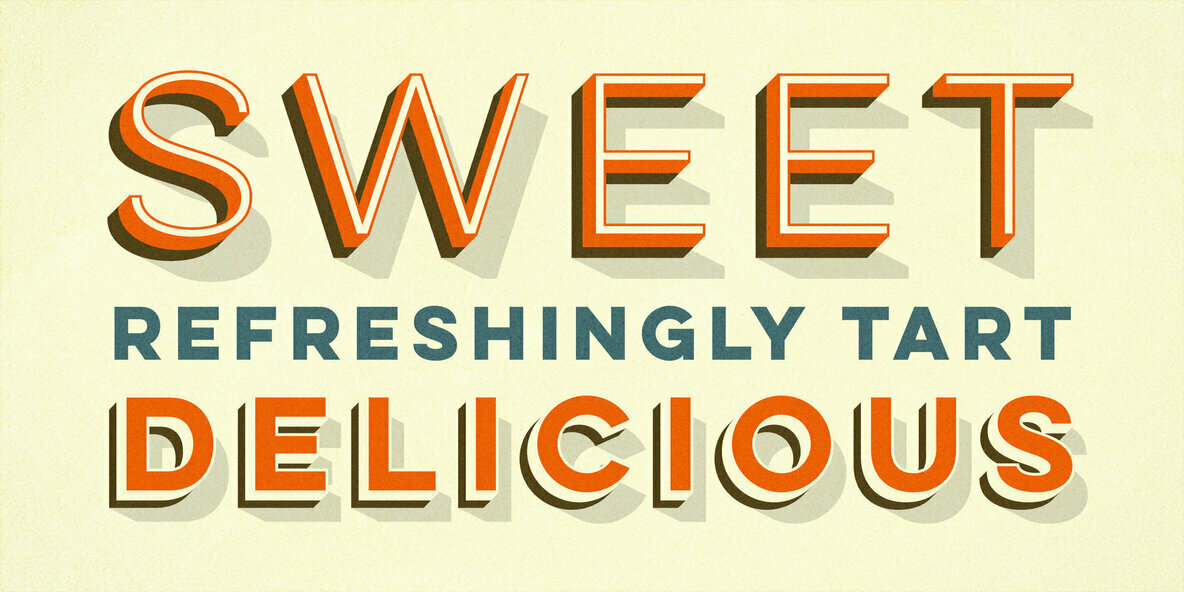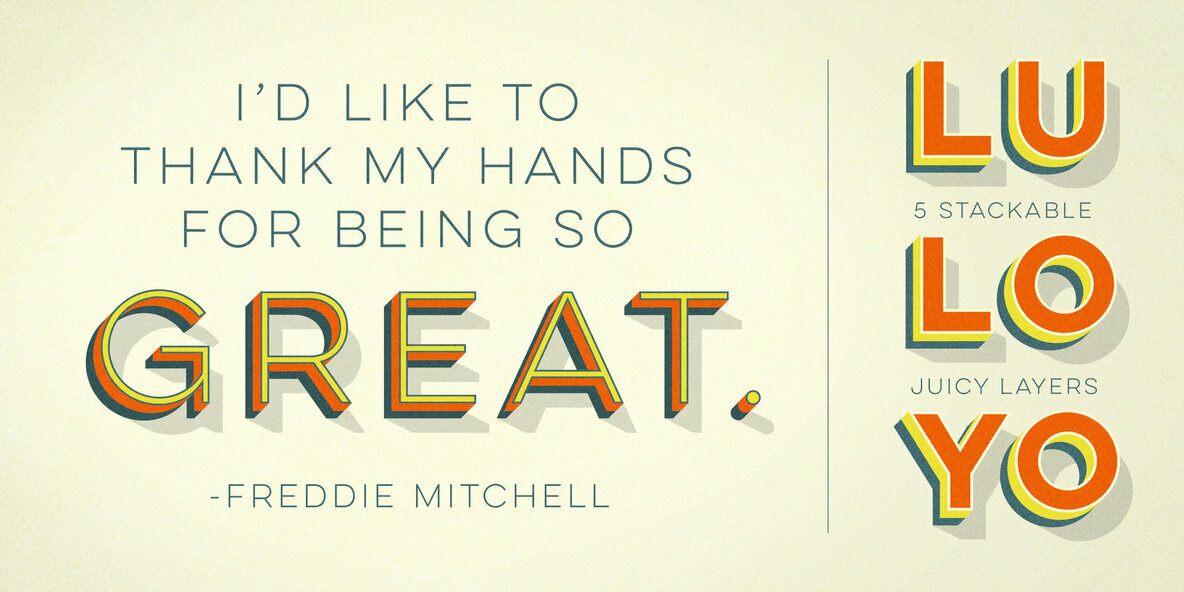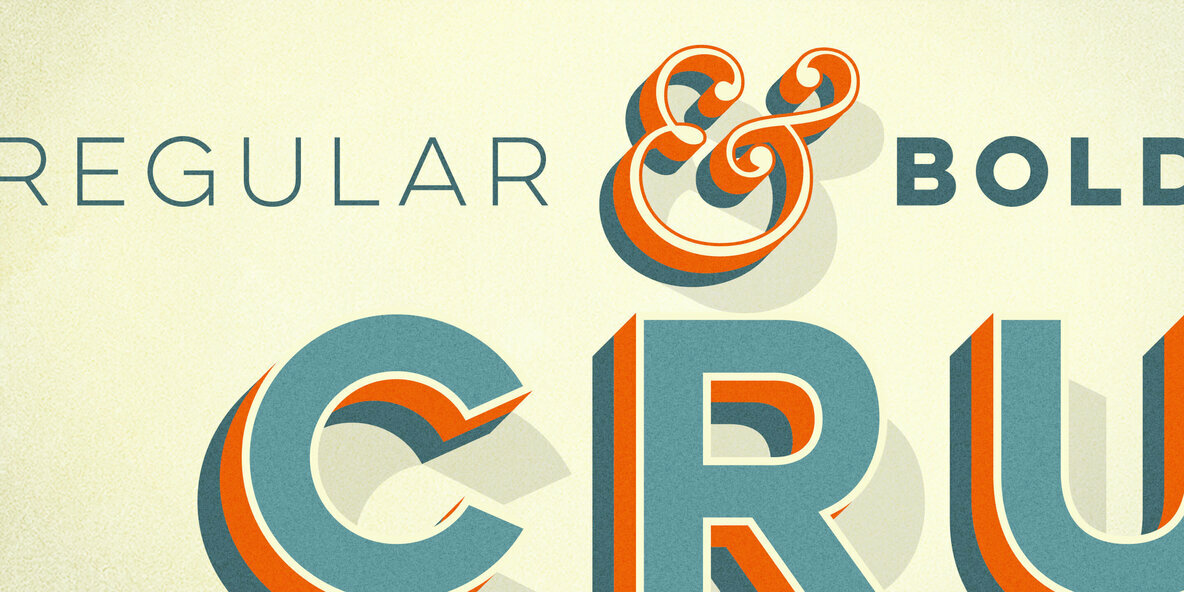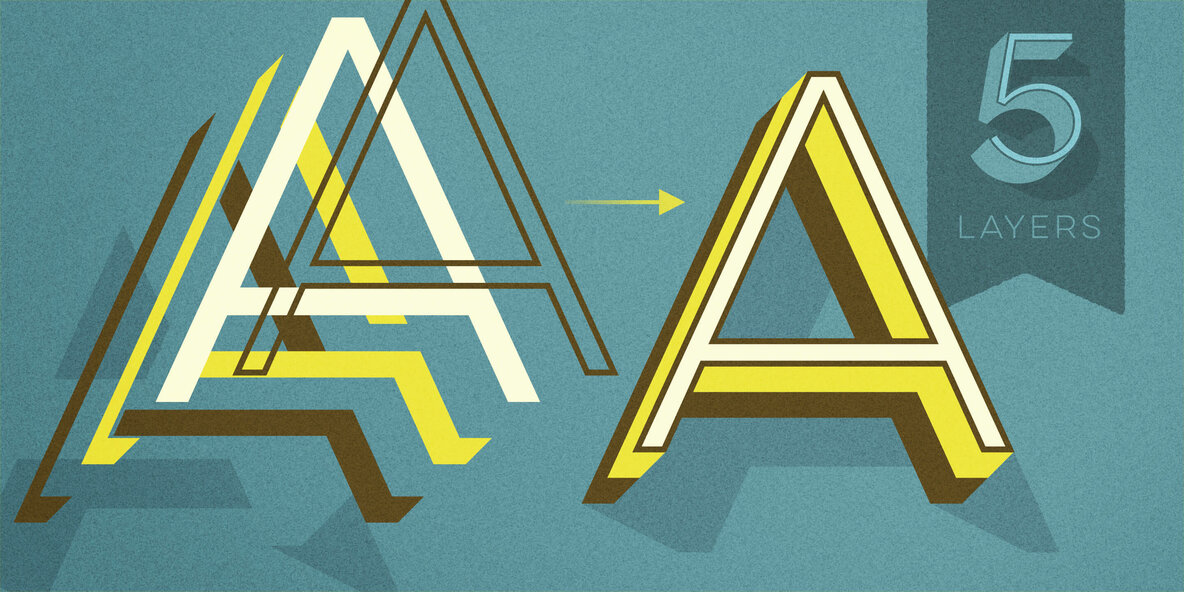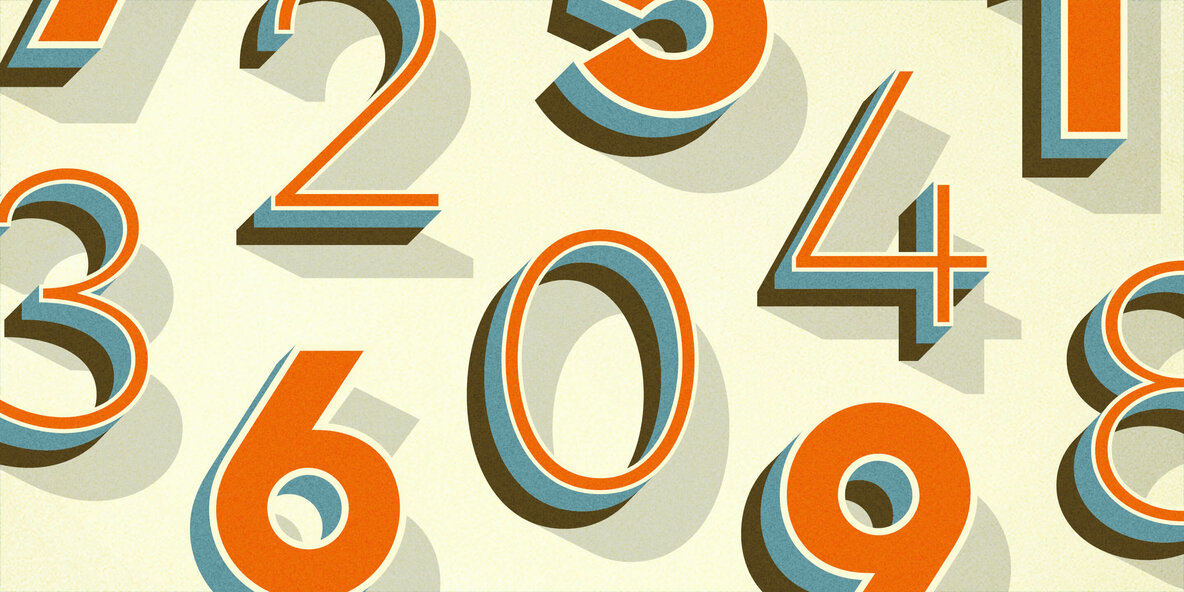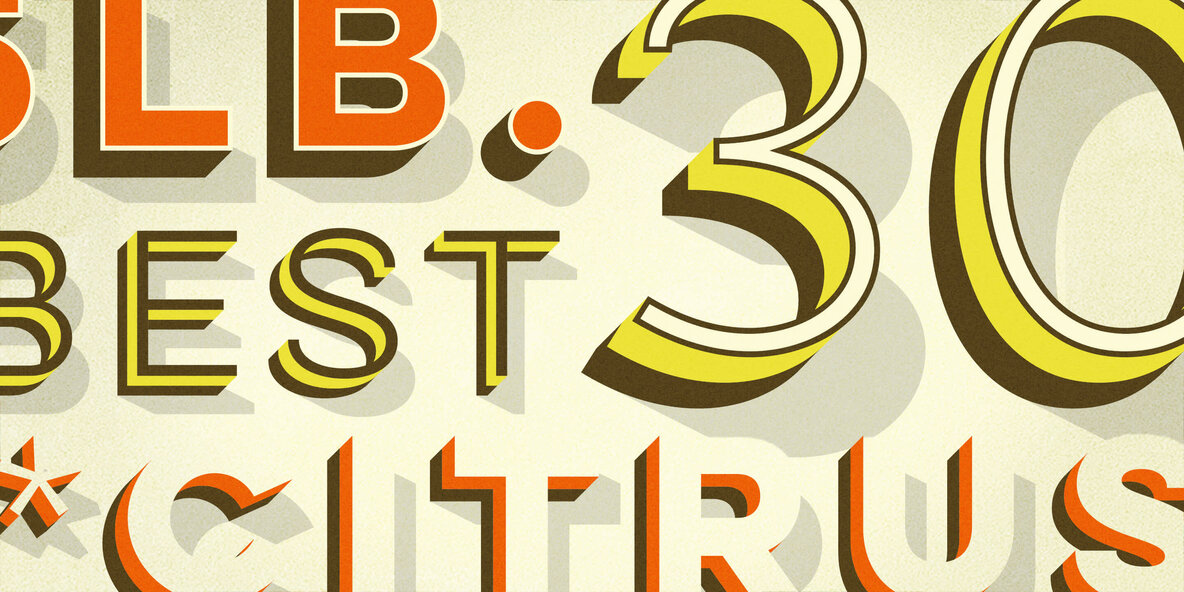
Lulo Clean Font
Lulo Clean from Yellow Design Studio is the non-distressed version of the original textured Lulo family. It’s friendly, retro, and amazingly 3-dimensional. Endless effects can be created by adding different colors to each of the 5 stackable layers. Lulo Clean is all-caps and includes regular and bold weights and extensive language support.